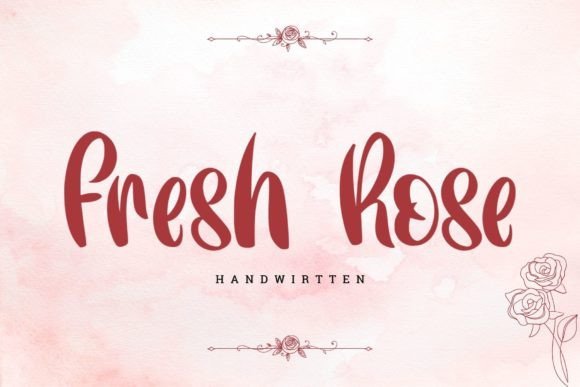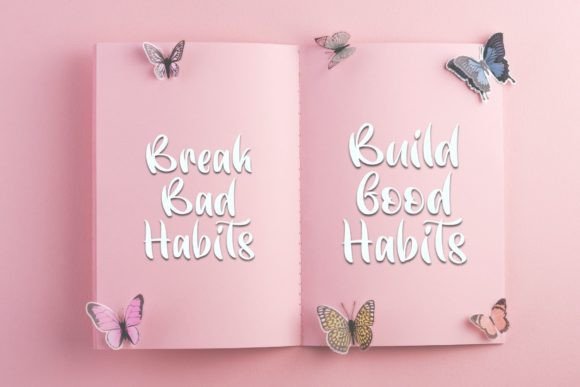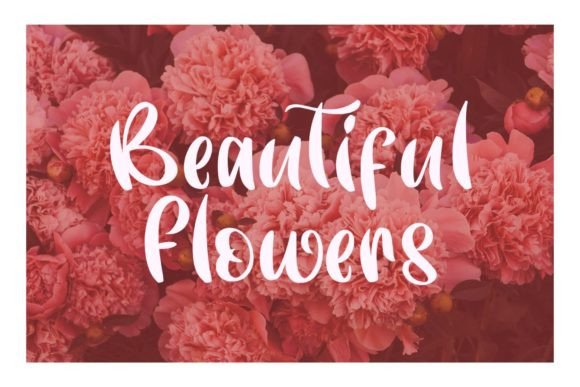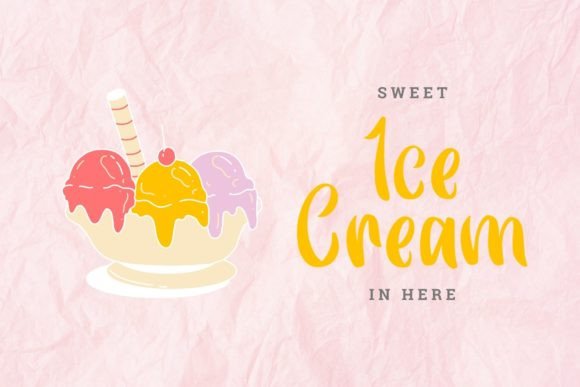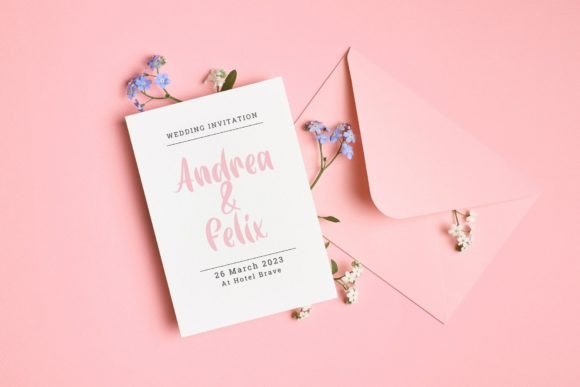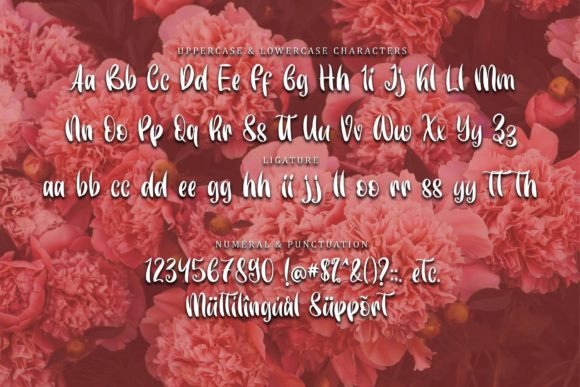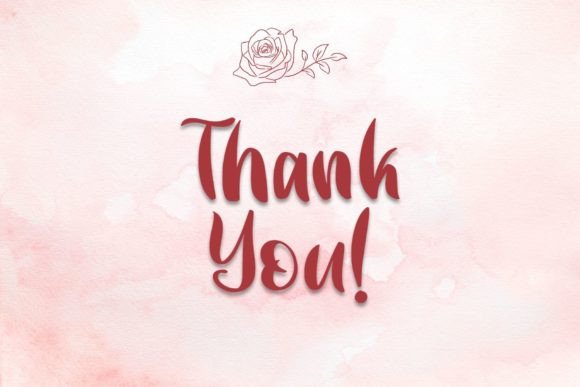
The Quirky Charm of Handwritten Text: Introducing the Fresh Rose Font
Remember that moment when you were brainstorming ideas for your new project, and suddenly, a spark of creativity hit you? The words started flowing, and your hand began to dance across the paper, leaving behind a trail of beautiful, imperfect handwriting. That’s exactly the magic that the Fresh Rose Font aims to capture.
This quirky handwritten font is designed to bring out the natural characteristics of your project, making it perfect for a wide range of applications, from websites and svg designs to home decor and branding. With its unique charm, the Fresh Rose Font is a valuable addition to any designer’s toolkit, adding a personal touch to even the most professional of projects.
Fresh Rose Font Key Features
- Unique Characteristics: Elegant and modern design, perfect for floral and feminine themes
Designer Review: Fresh Rose Font
First off, I want to say that I was really drawn in by the whimsical feel of the Fresh Rose Font. The elegant, handwritten script style is ✨ instantly eye-catching and adds a touch of romance to any design. The font’s versatility is also a major plus, making it suitable for a wide range of projects, from wedding invitations to social media graphics.
Another aspect that I appreciate about Fresh Rose Font is its ✨ high level of customization. The font comes with a variety of styles, from regular to bold, and even includes a few fun embellishments to give your designs an extra pop. The font is also ✨ highly legible, making it easy to read and understand.
While I love the Fresh Rose Font, I do have a few concerns. The font’s ✨ limited character set is a major drawback, as it can be frustrating to try and find the specific characters you need. Additionally, the font’s ✨ lack of support for certain languages can be a limitation for designers working on international projects.
- ✨ Limited character set
- ✨ Lack of support for certain languages
Overall, I think the Fresh Rose Font is a great choice for designers looking to add a touch of elegance and whimsy to their projects. While it may have some limitations, its unique style and high level of customization make it a valuable addition to any design arsenal.
The Fresh Rose Font is ideal for:
2. Floral-themed designs and branding.
3. Romantic and whimsical projects.
For optimal results, pair the Fresh Rose Font with pastel colors and soft textures.